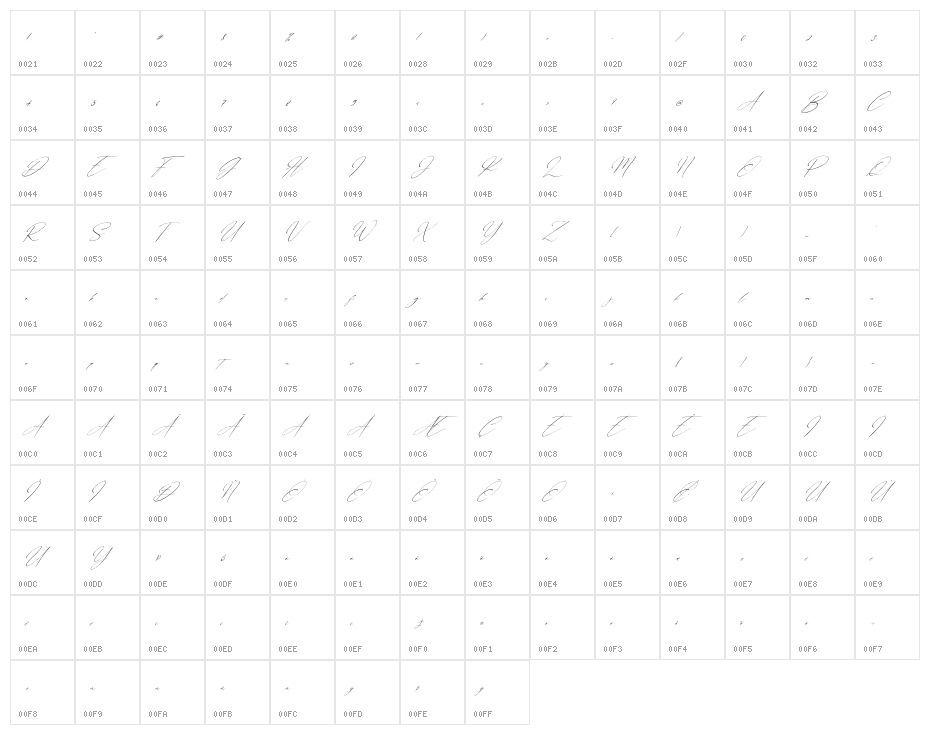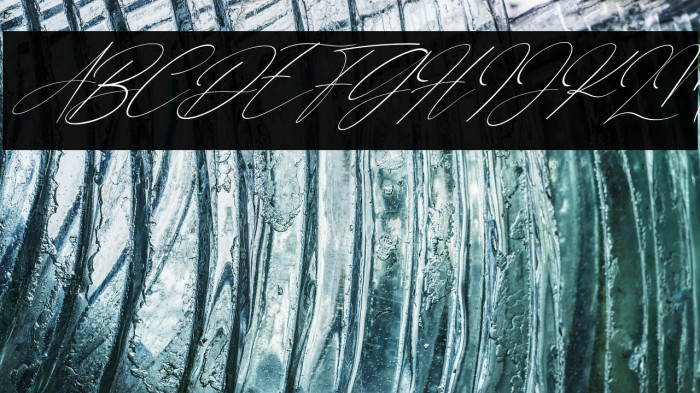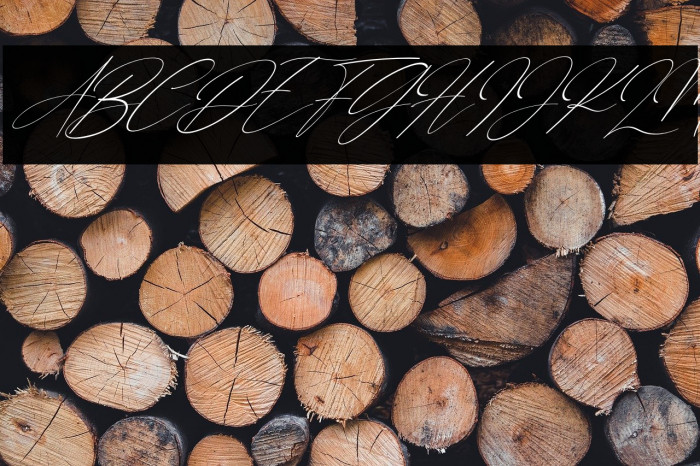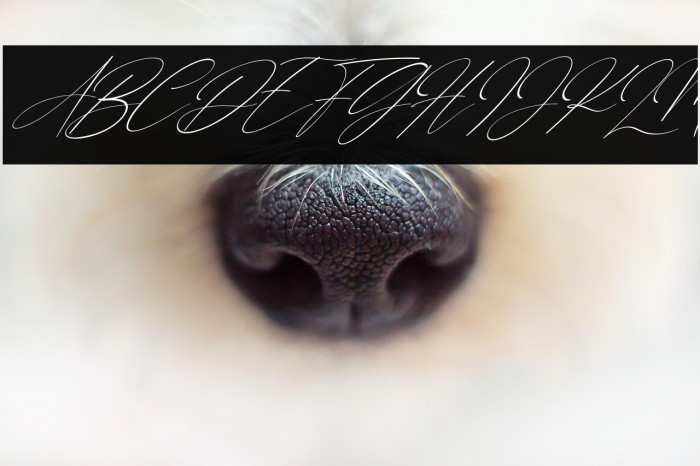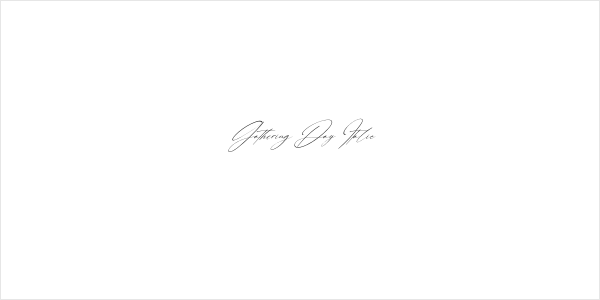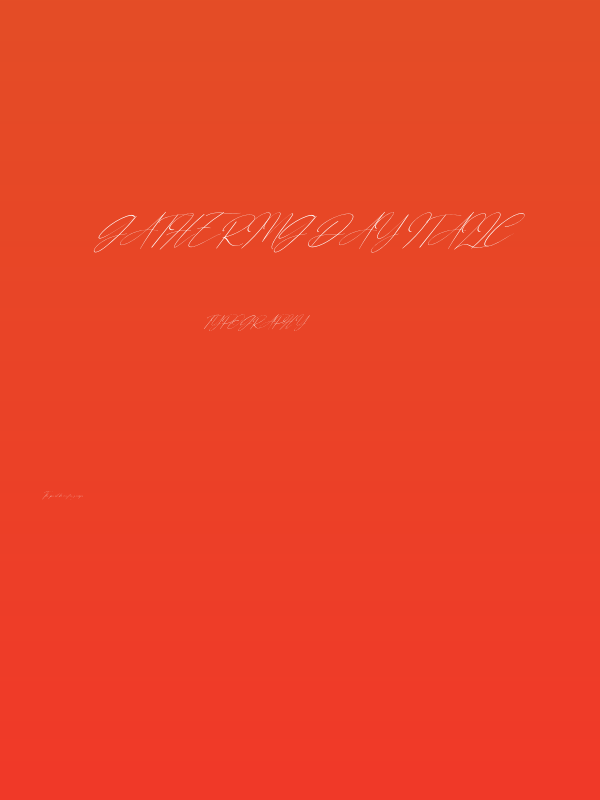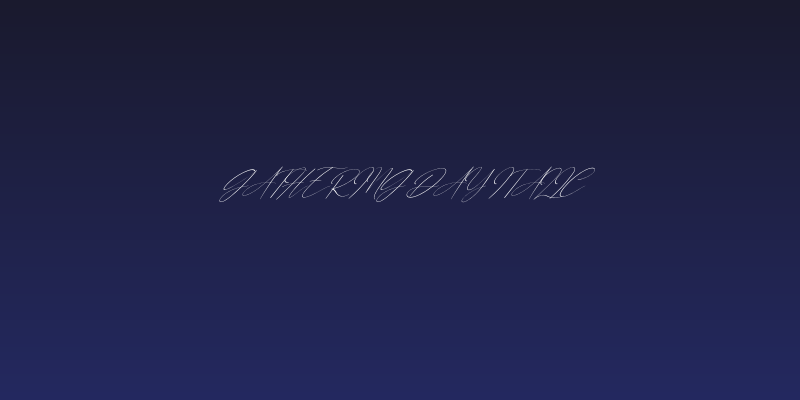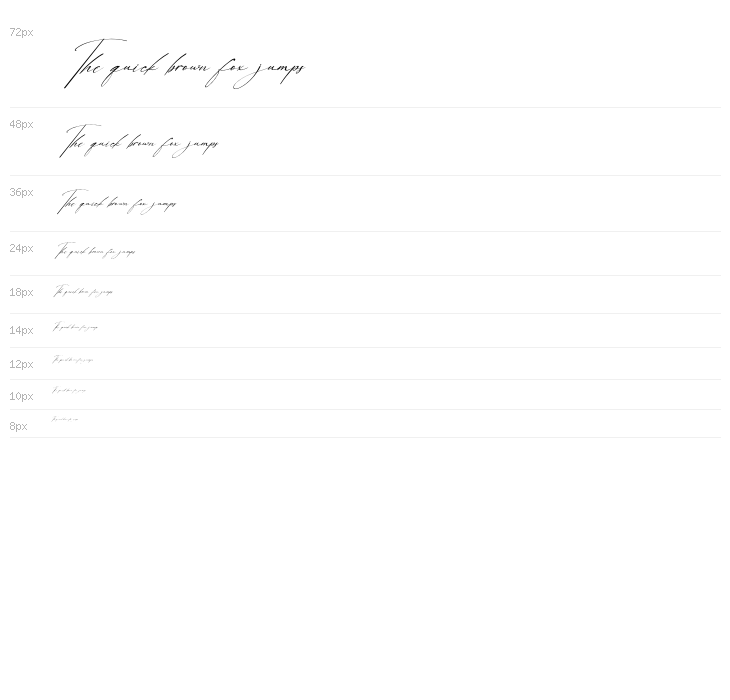
Gathering Day Italic Font
Gathering Day Italic Description
This elegant script font features flowing, interconnected letters that exude a sense of sophistication and grace. The characters are slanted, emphasizing its italic nature, and are crafted with delicate, thin strokes that vary in thickness, adding a dynamic and fluid appearance. The uppercase letters are grand and sweeping, while the lowercase letters maintain a consistent style, complementing the overall aesthetic. The numerals and special characters are designed to match the cursive style, ensuring a cohesive look across all text. This font is ideal for projects that require a touch of elegance and refinement.